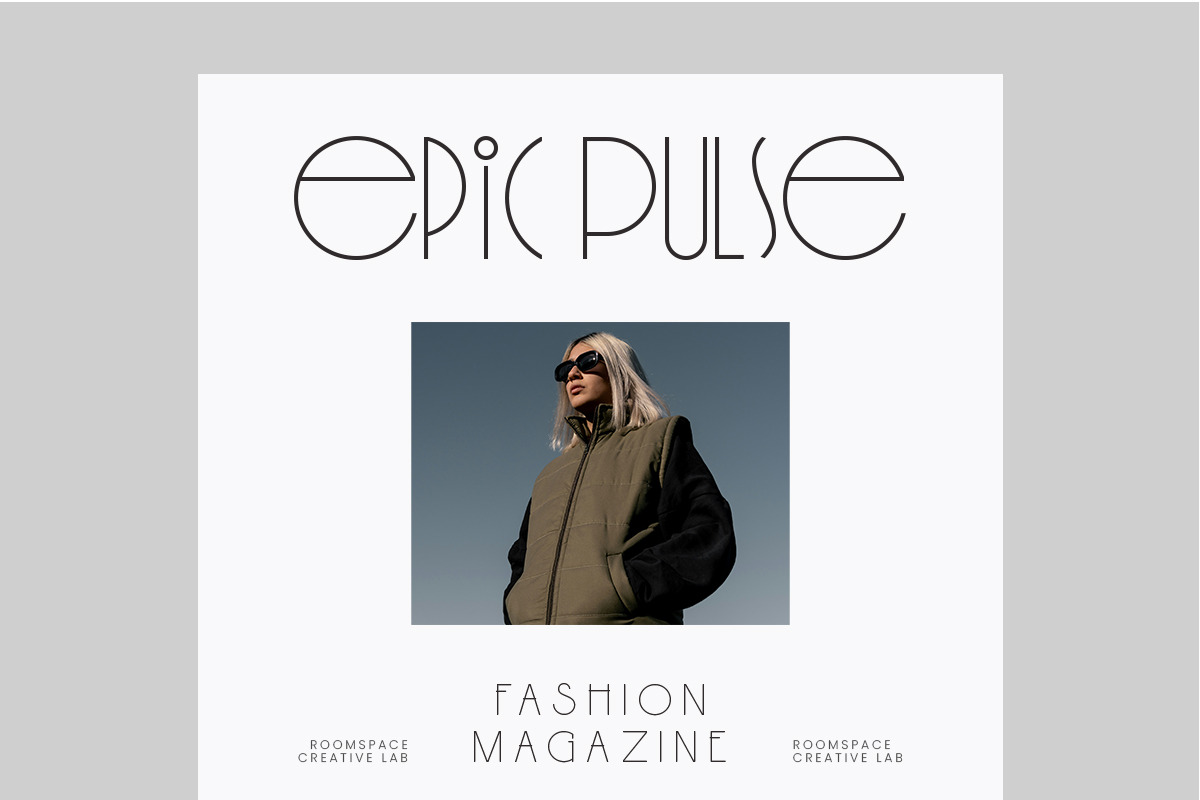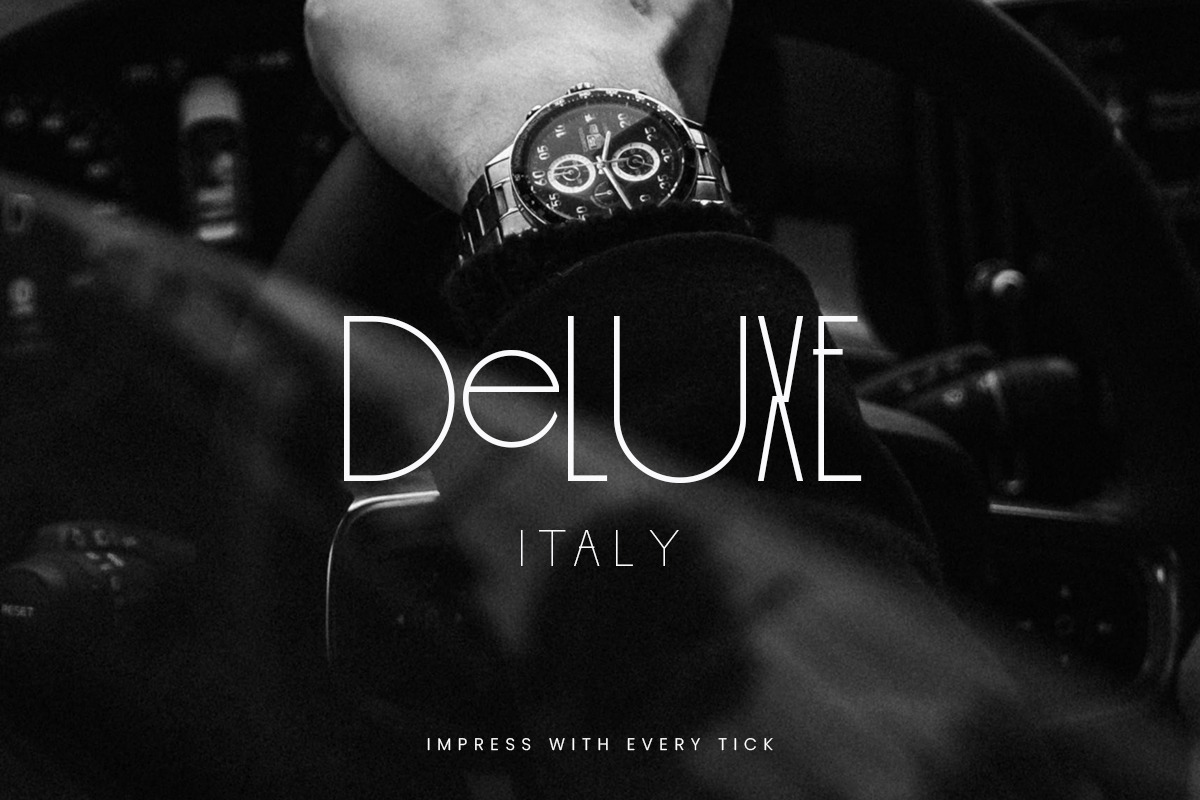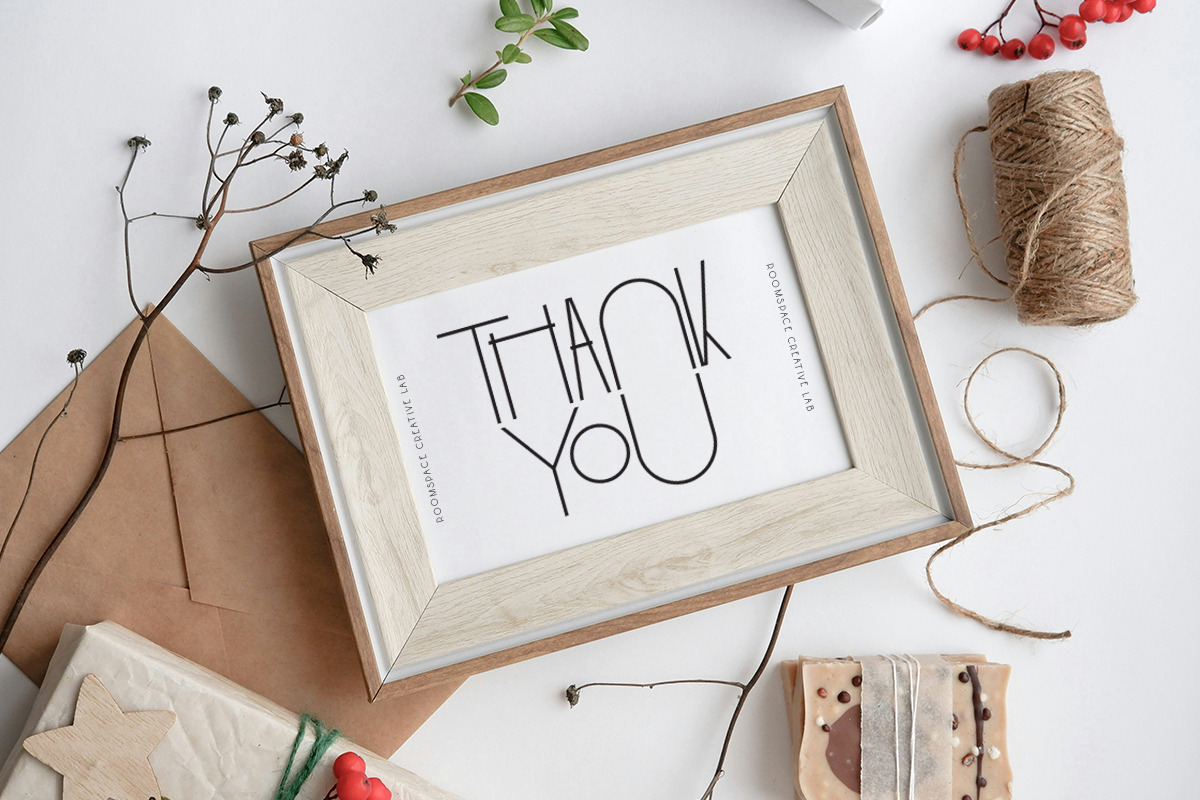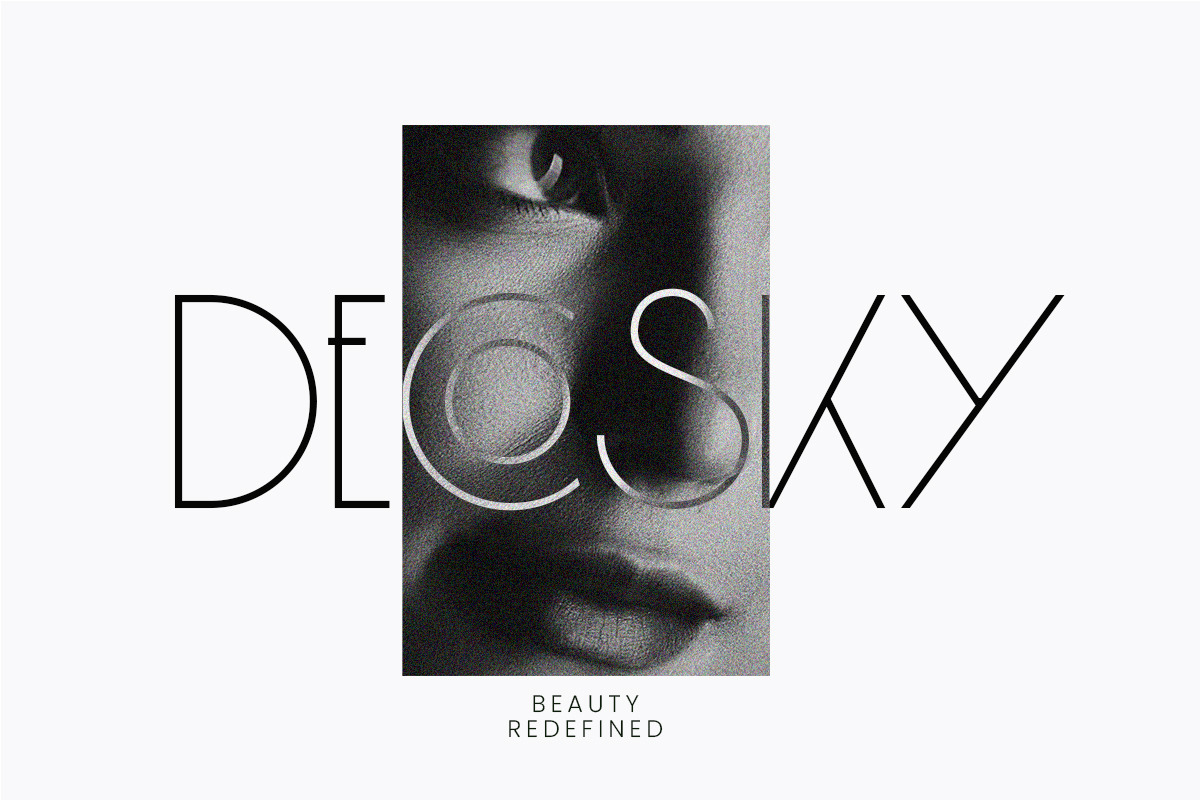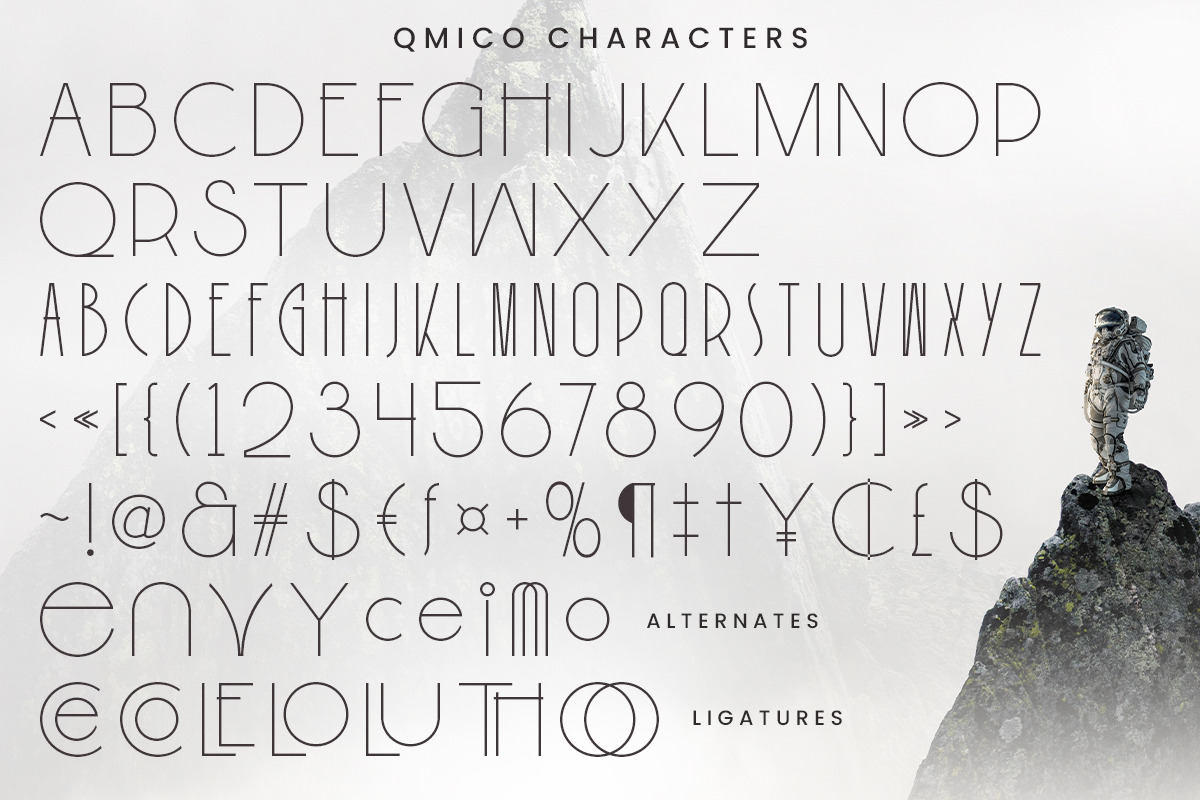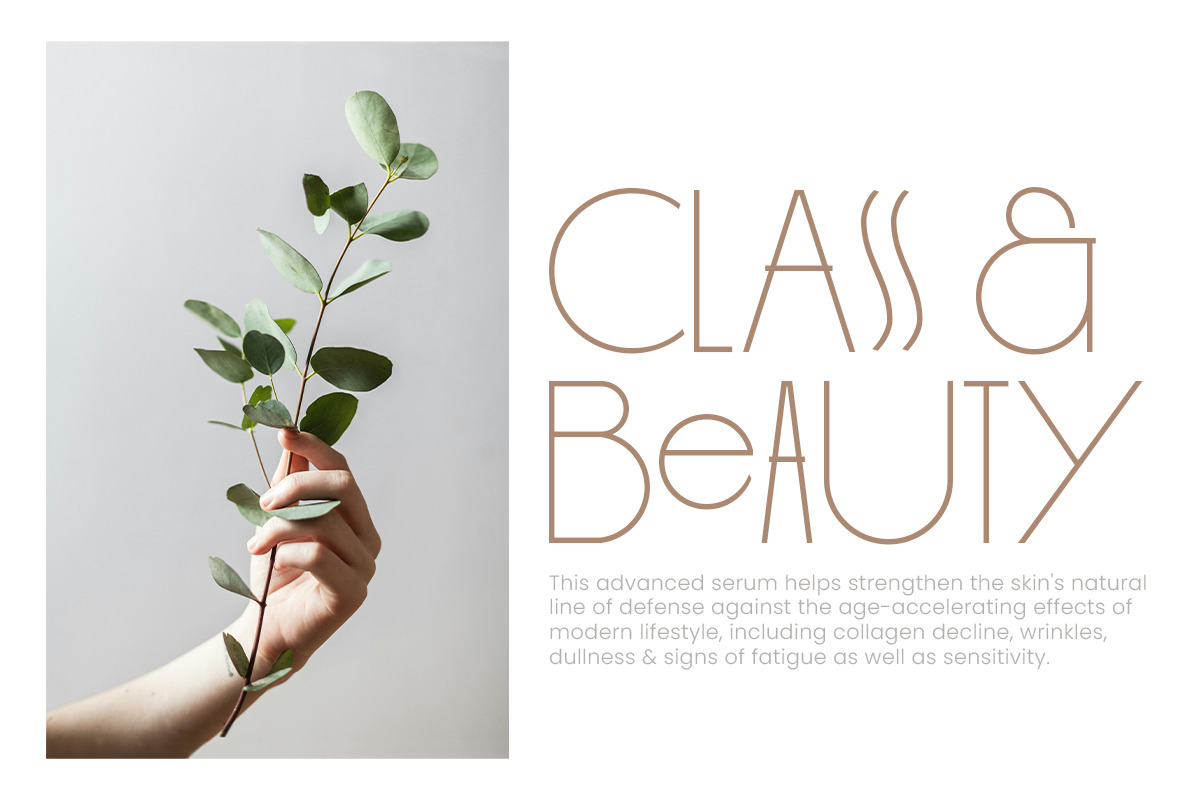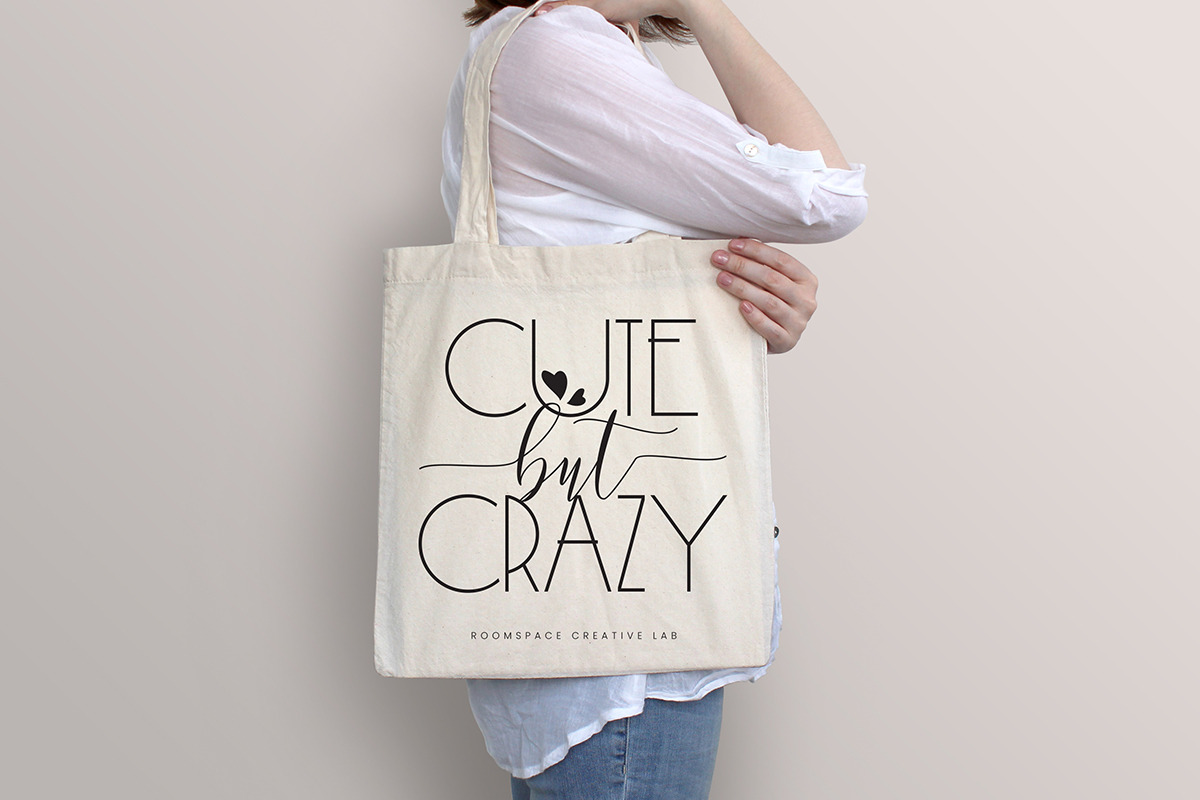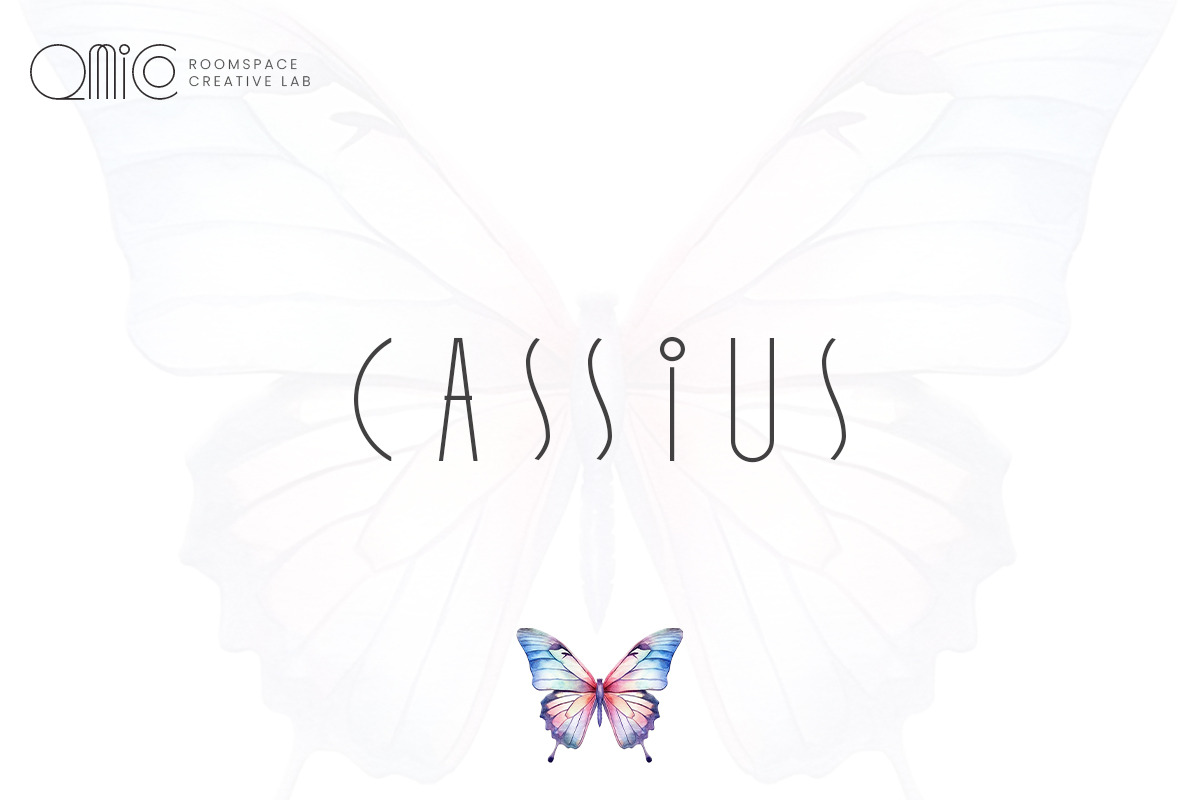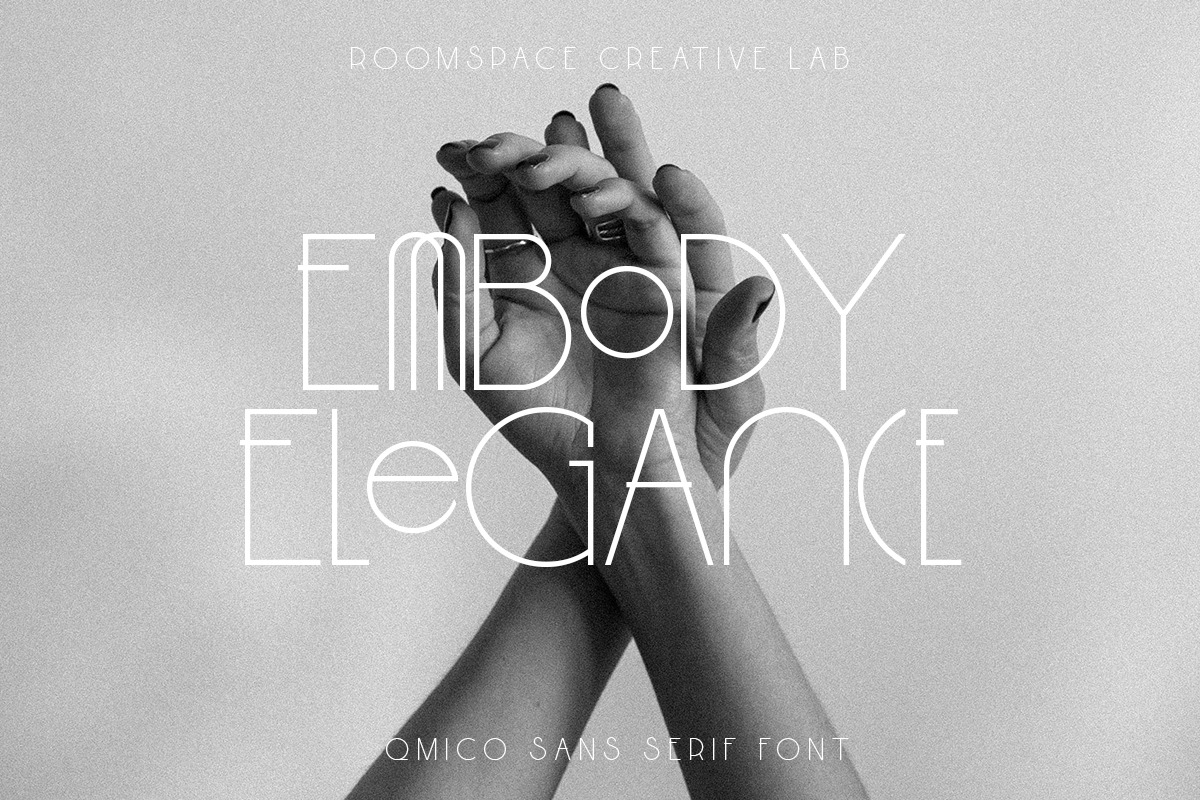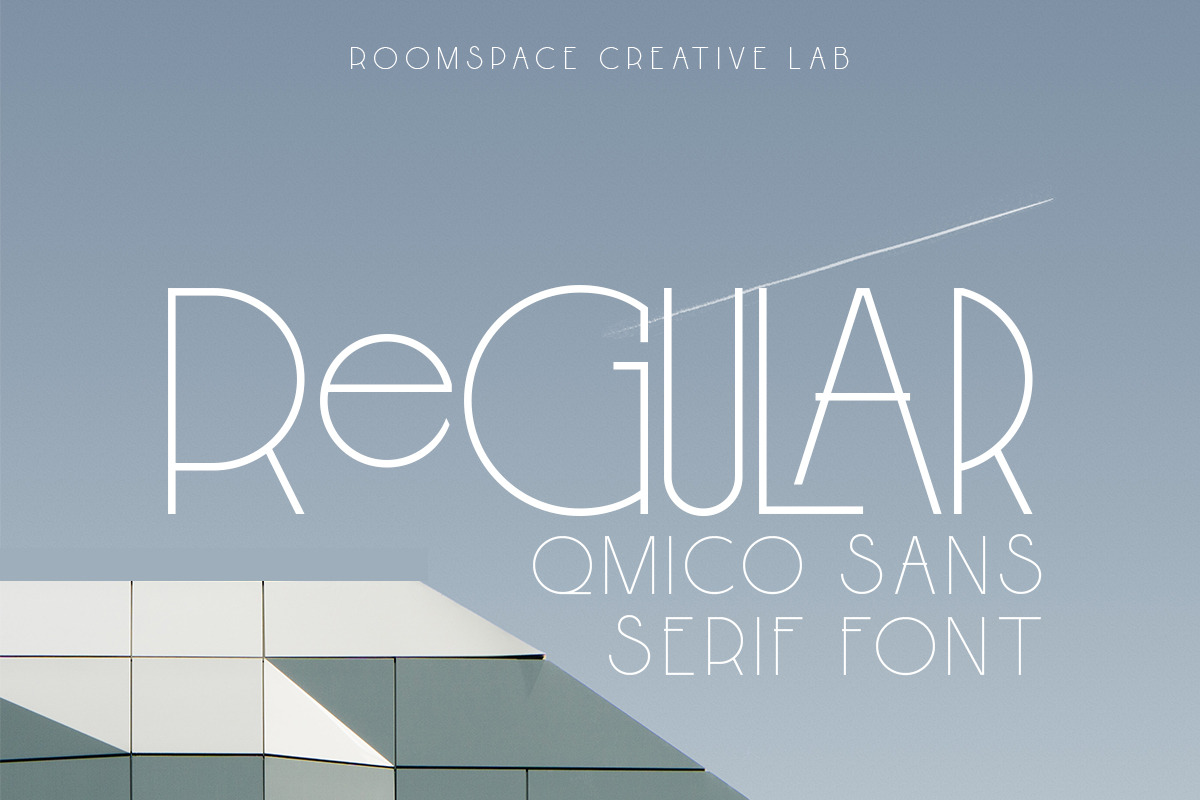
Qmico - Modern Minimal Art Deco Font
Qmico – where Art Deco allure meets modern minimalism. This captivating font seamlessly blends vintage charm with contemporary elegance, featuring sleek lines and delicate strokes for a refined aesthetic.
Qmico's unique combination of Art Deco inspiration and modern sophistication sets it apart. Its harmonious blend of uppercase and lowercase characters adds a touch of individuality, perfect for branding, editorials, and web design projects seeking both style and clarity.
- Art Deco-inspired font with modern simplicity
- Seamless integration of uppercase and lowercase characters
- Sleek lines and delicate strokes for a refined aesthetic
- Ideal for branding, editorials, web design, and more